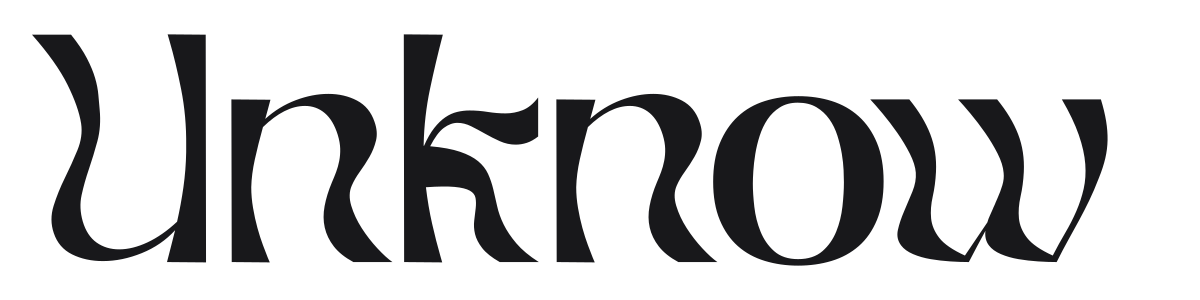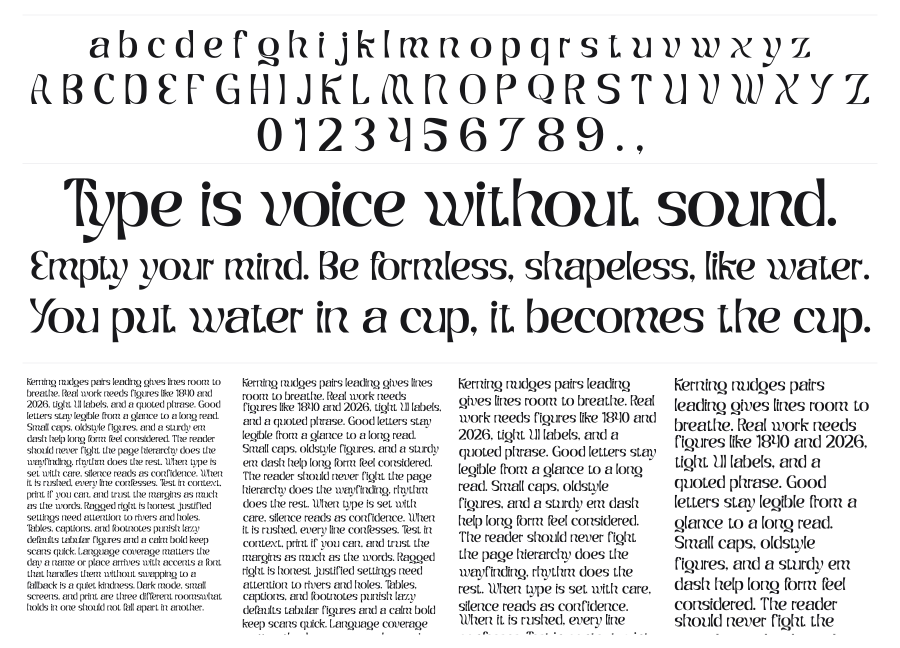
Unknow
Unknow is a bold retro serif with sweeping high-contrast strokes and organic, almost calligraphic curves throughout. The thick stems melt into hairline thins with a dramatic flair that sits somewhere between Art Nouveau and 1970s fashion typography. It commands attention at large sizes and brings a distinctly editorial personality to headlines and logotypes.